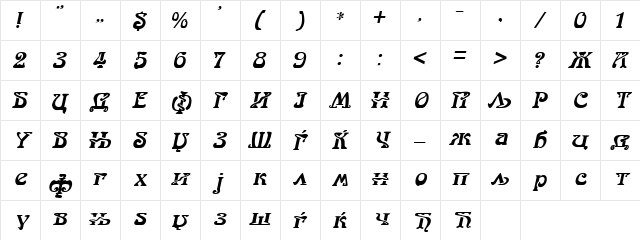
C_Arabia Italic
Design Context for C_Arabia
C_Arabia is a composed and adaptable typeface that performs quietly and consistently across a wide range of design contexts. The slanted form adds forward momentum and visual energy.
Pro Tip: Use C_Arabia for emphasis, pull quotes, and subheadings where its slanted energy can add rhythm to the layout.